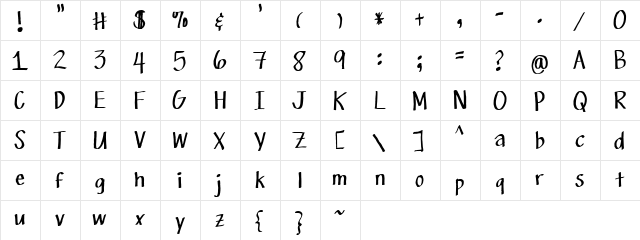
Chelmo Regular
Design Context for Chelmo Typeface
Chelmo is a composed and adaptable typeface that performs quietly and consistently across a wide range of design contexts.